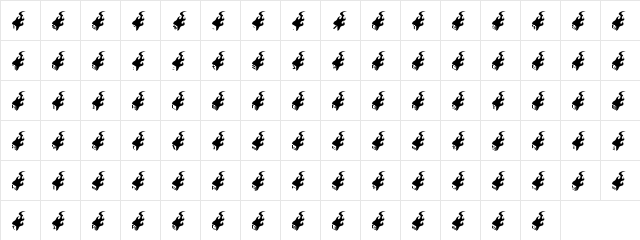
Hardboiled Medium
Design Context for Hardboiled Typeface
Hardboiled is a composed and adaptable typeface that performs quietly and consistently across a wide range of design contexts.